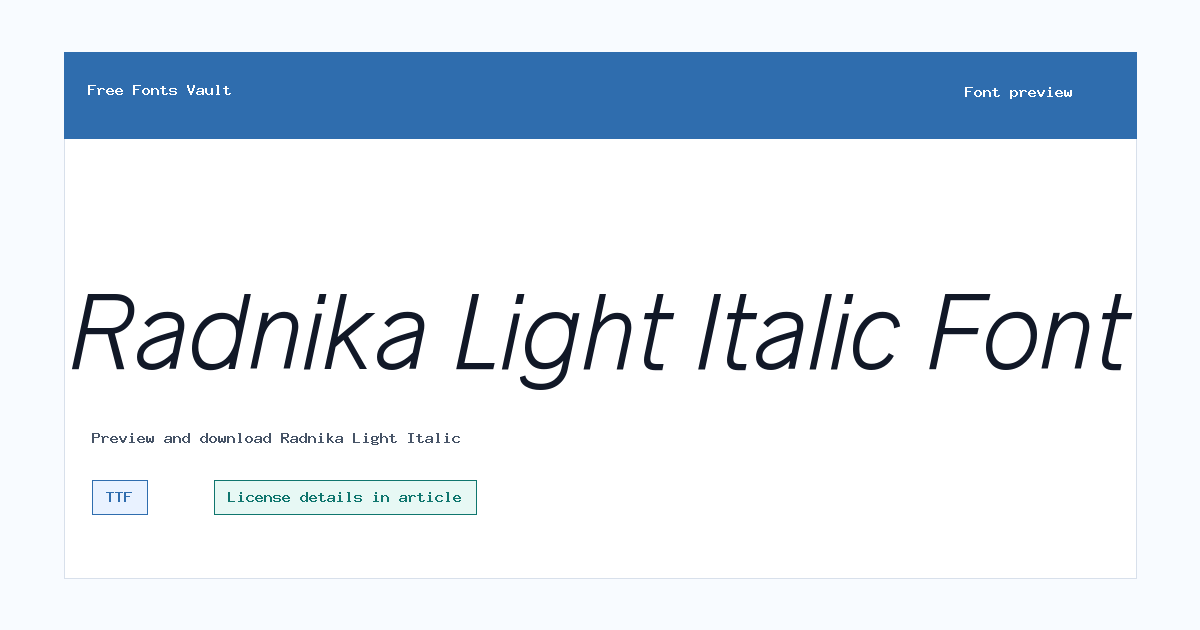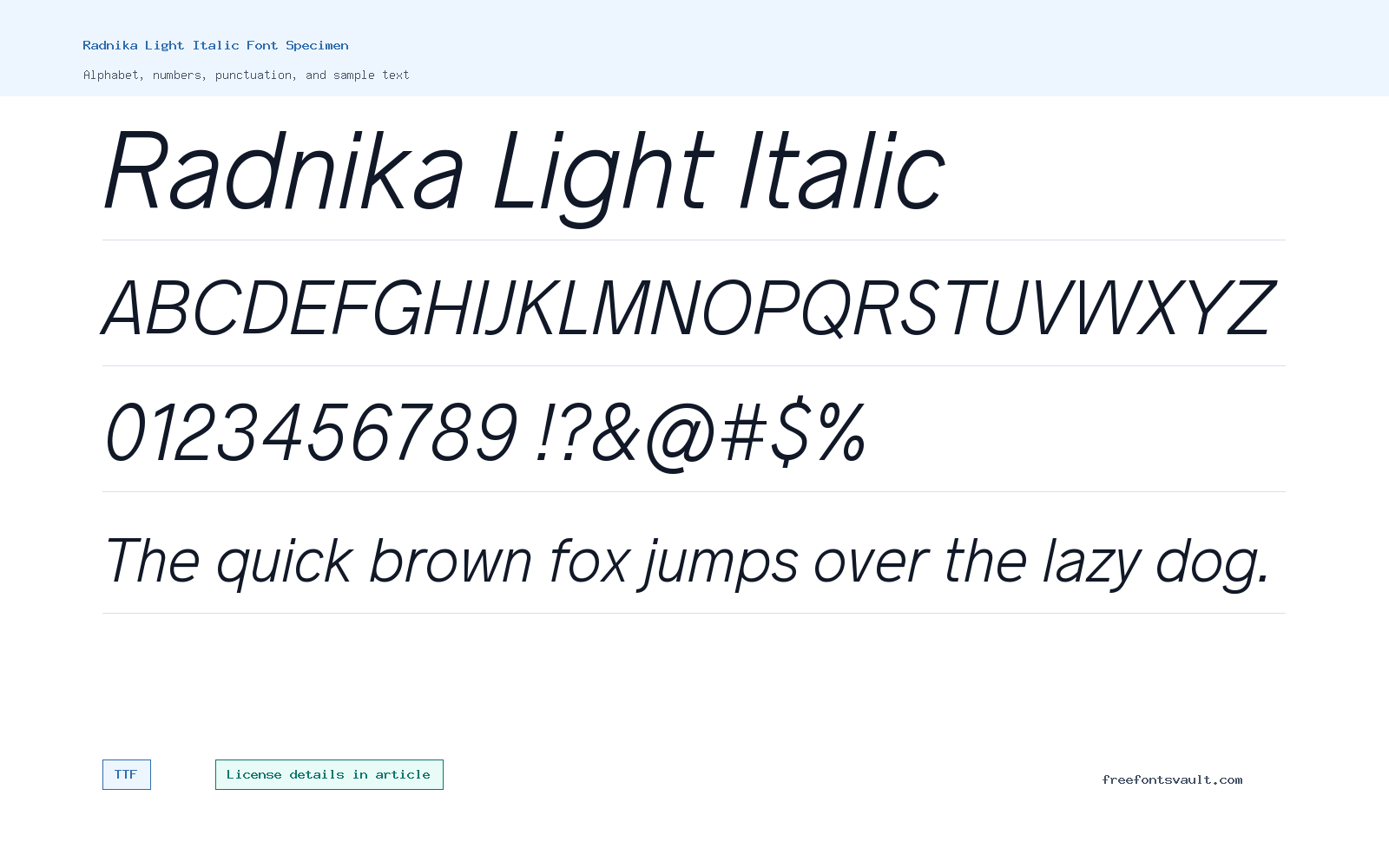
Radnika Light Italic
- Designer Alfredo Marco Pradil
- Foundry Hanken Design Co.
Radnika Light Italic font.
Radnika Light Italic is a light, slanted typeface style with a clean text-focused feel. Its thin weight and italic angle make it useful for quieter emphasis rather than loud display work.
About Radnika Light Italic
Radnika Light Italic uses a 300 weight and an italic style, giving it a lean, angled look. Because this download is a single TTF file, it is best treated as one style within the broader Radnika family rather than a full multi-weight package. The light weight can feel refined in short lines, captions, small headings, pull quotes, and supporting text where a regular upright font would look too plain.
Use the preview tool to test real words before downloading, especially if you plan to use it at small sizes. Light italic fonts can lose clarity on low-resolution screens, thin printing, or busy image backgrounds. For better readability, pair Radnika Light Italic with a stronger upright sans serif for body copy, navigation, and long paragraphs. Keep the italic style for contrast, notes, emphasis, and brief editorial details.
This style is strongest when it plays a supporting role. Use it to soften a headline system, add contrast to a quote, or give small editorial details a more graceful voice. If every element on the page is italic, the emphasis disappears, so reserve it for moments where the slant has a purpose.
- Light 300 weight with an italic slant
- Useful as an emphasis style in clean layouts
- Pull quotes and short editorial notes
- Subheadings, captions, and image labels
- Elegant emphasis inside branding mockups
- Minimal posters, lookbooks, and portfolio layouts
Radnika Light Italic is credited to Alfredo Marco Pradil, with Hanken Design Co. listed as the foundry.
For the best result, use Radnika Light Italic in short text where the slant adds emphasis. Avoid using this light italic style for long reading passages, dense UI text, or small text over photos unless the preview remains clear. Test print and screen output separately if the project uses very fine text.
What weight is Radnika Light Italic?
Radnika Light Italic is listed with a 300 font weight, which is commonly used for light styles.
Where does Radnika Light Italic work best?
It works best in short pieces of text such as captions, quotes, subheadings, labels, and refined emphasis. Use a heavier upright font for longer reading text.
Who designed Radnika Light Italic?
The font is credited to Alfredo Marco Pradil, and Hanken Design Co. is listed as the foundry.